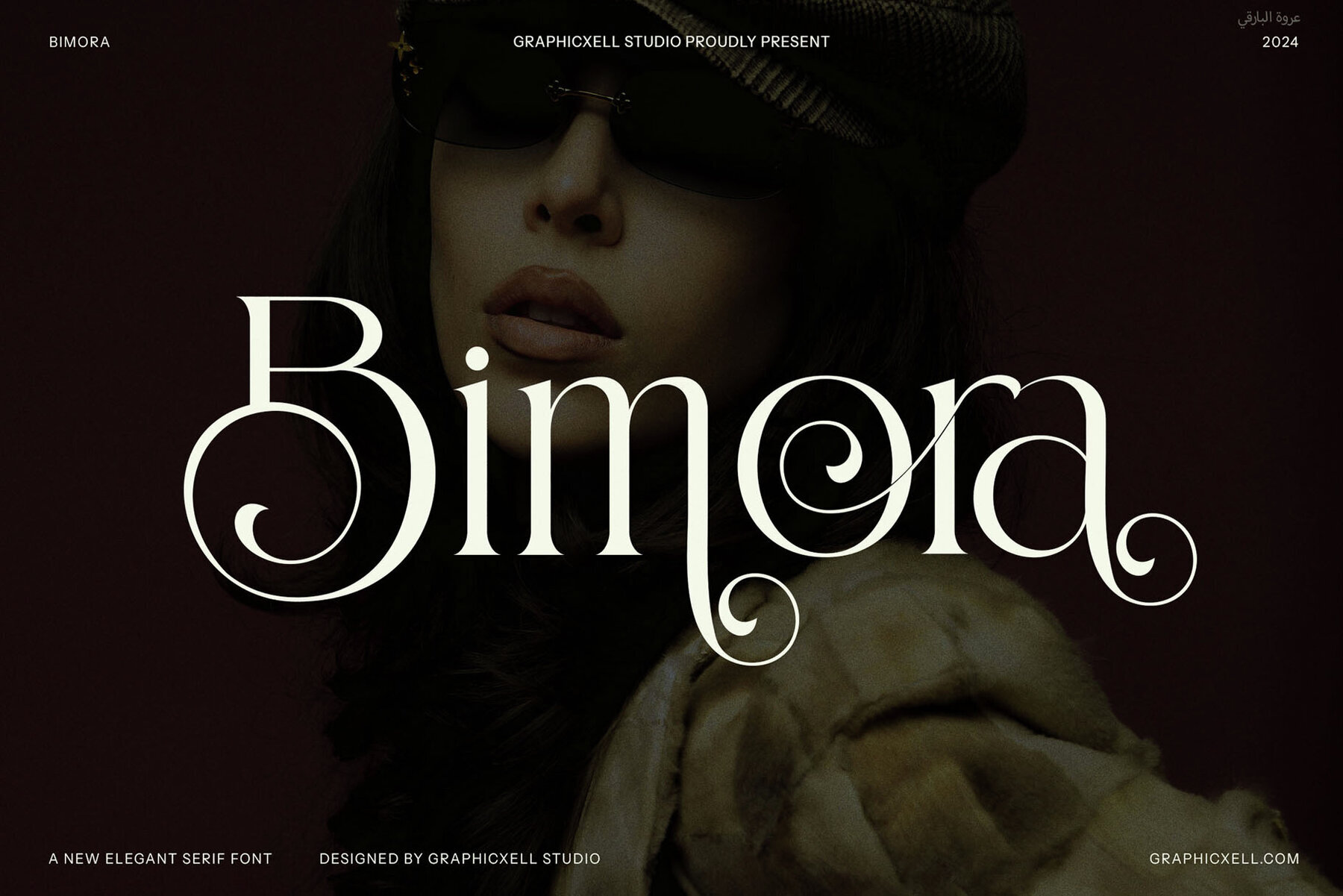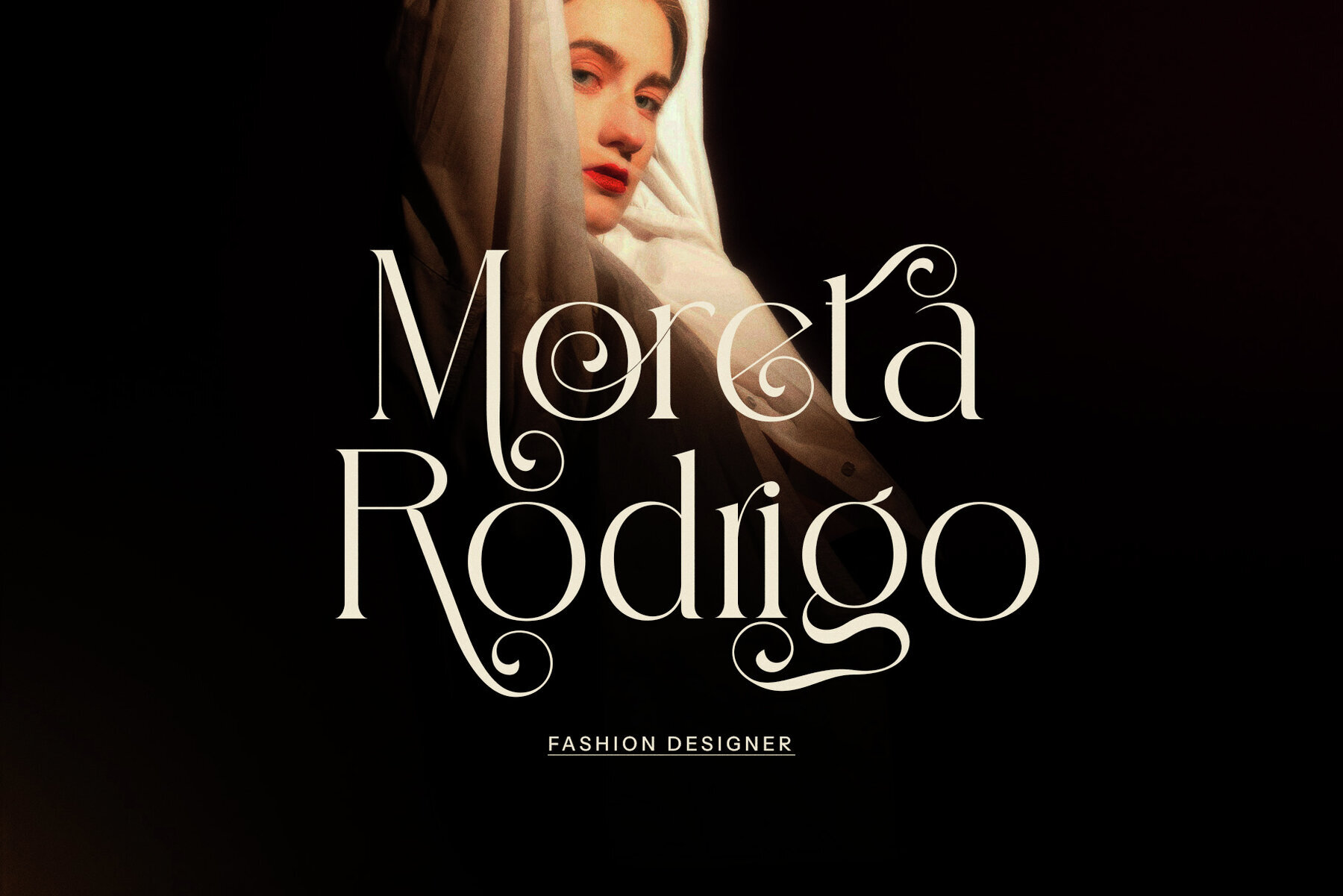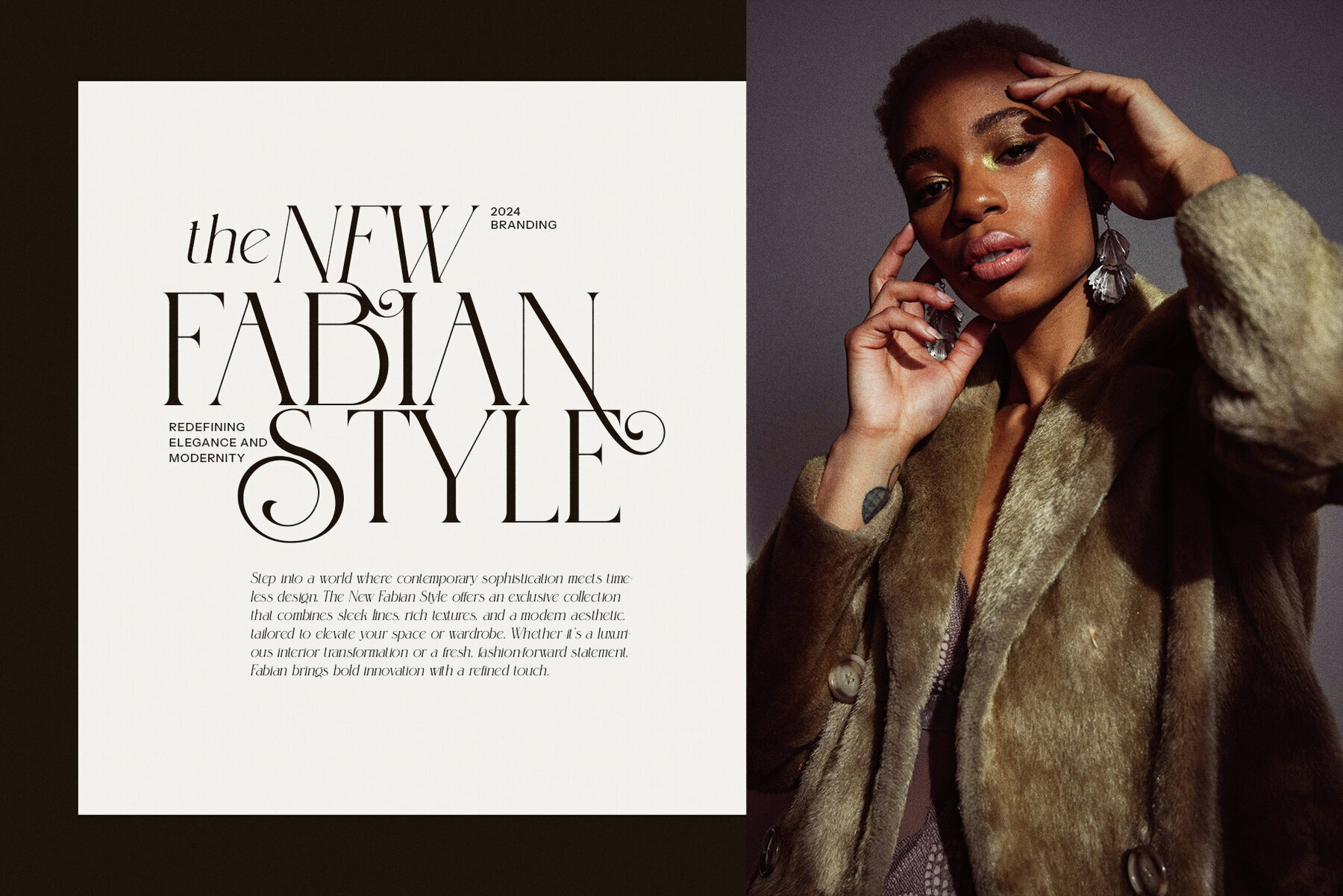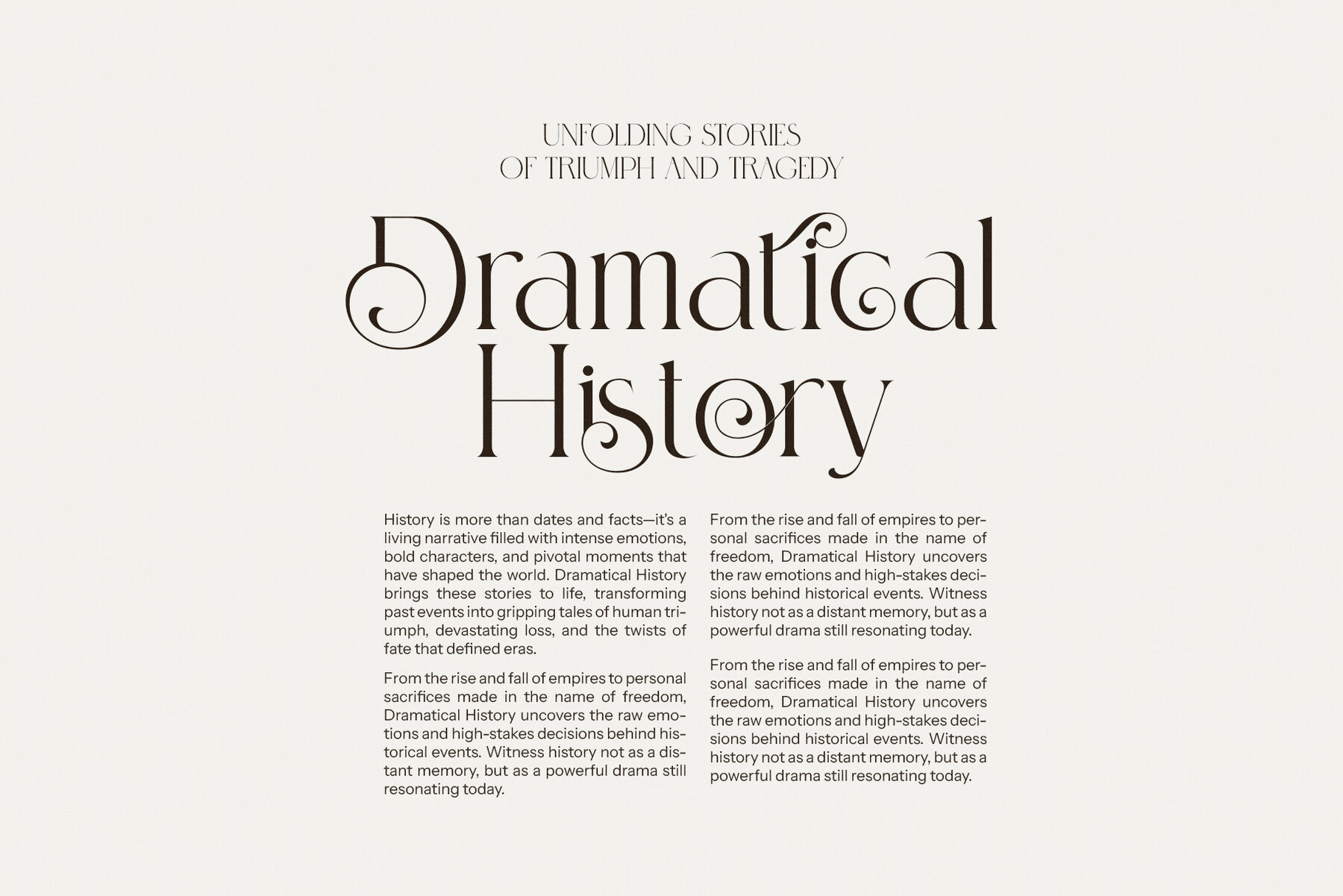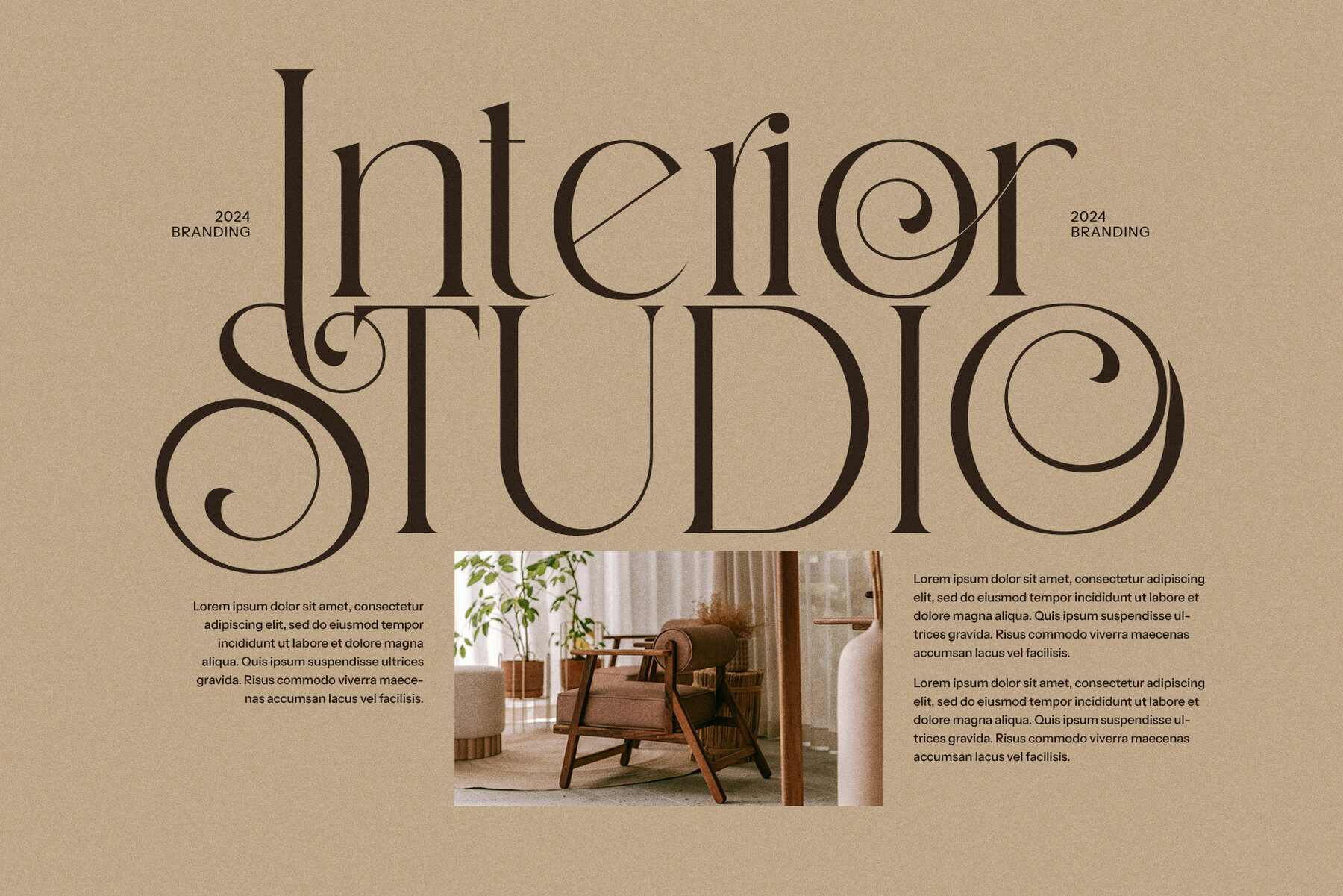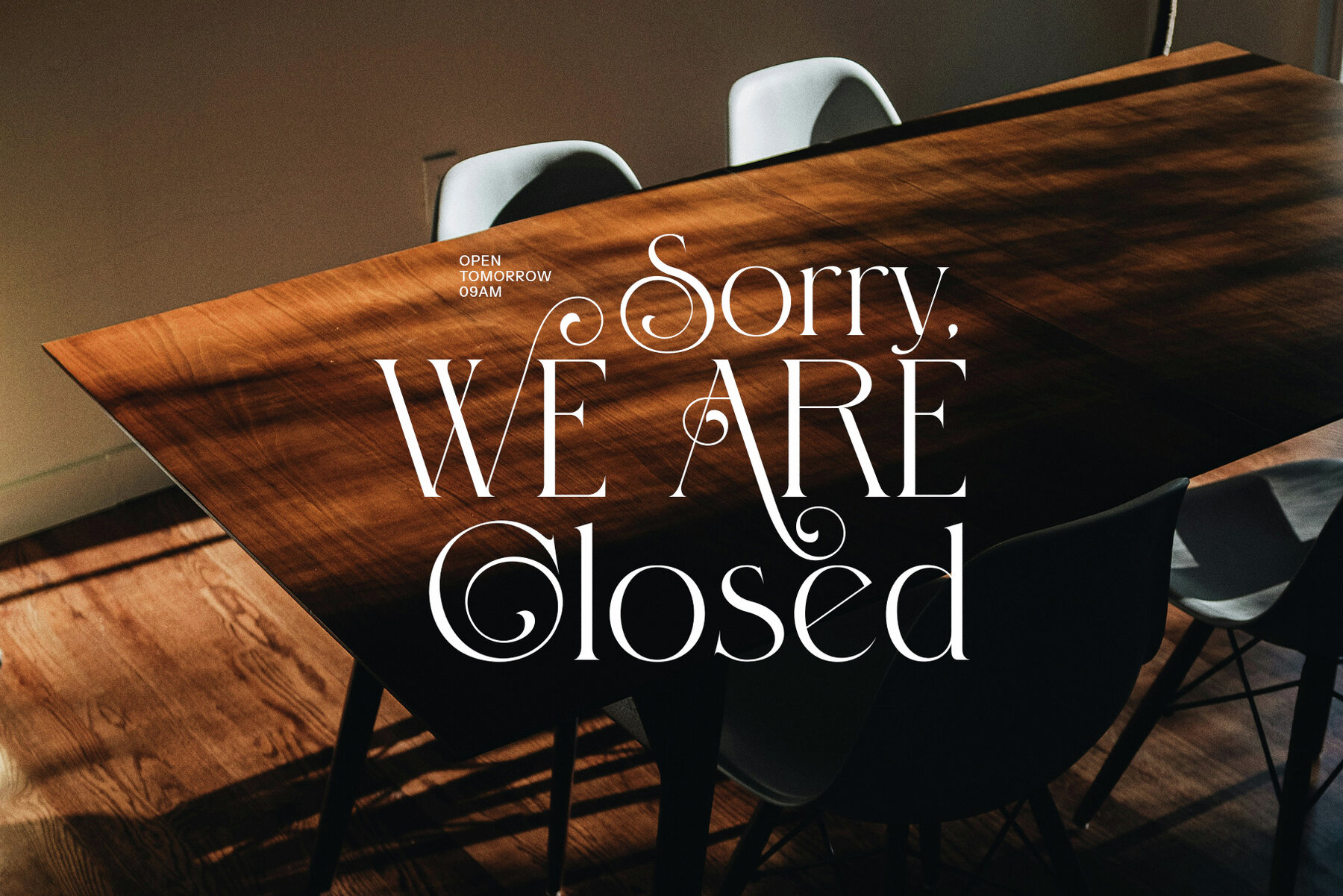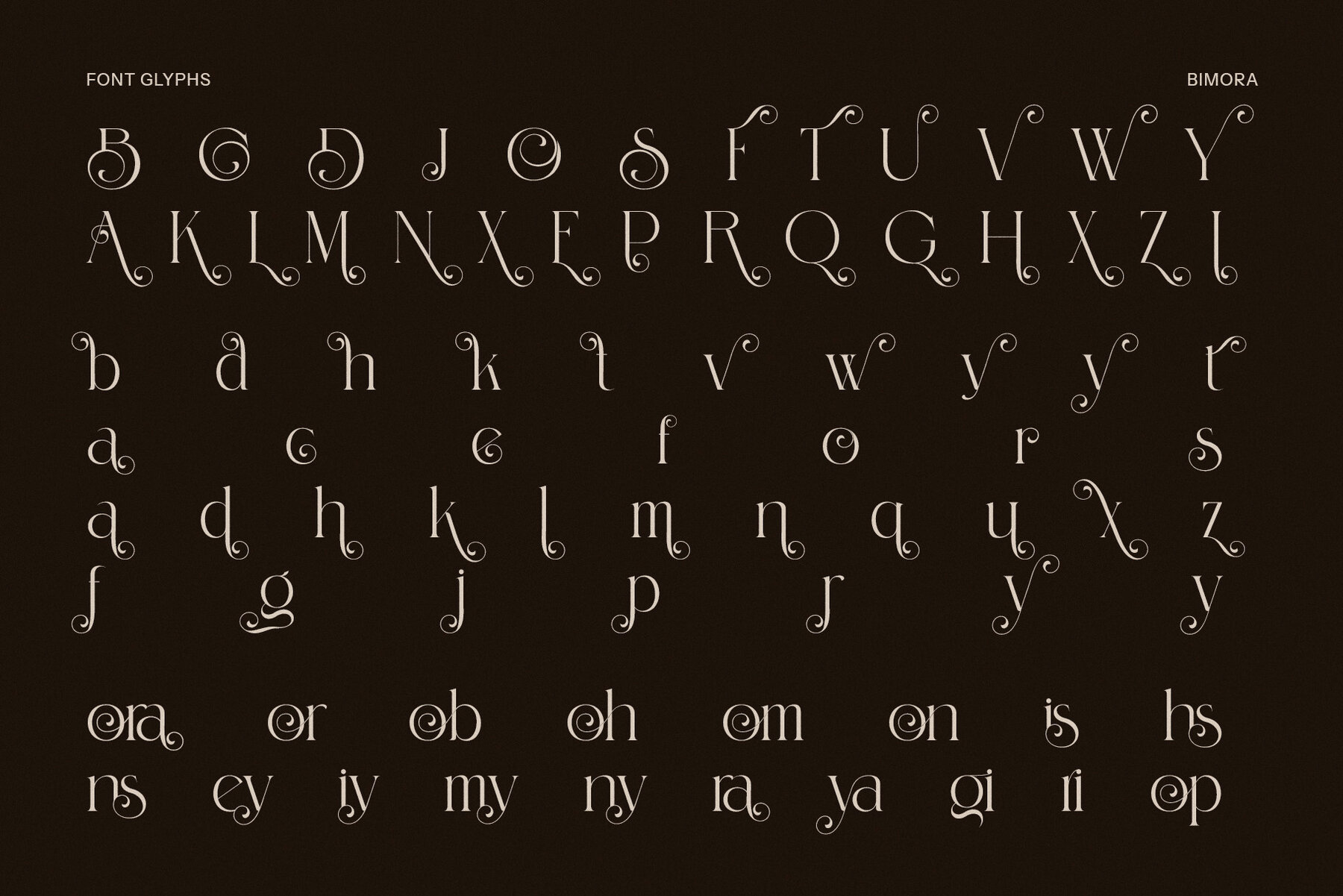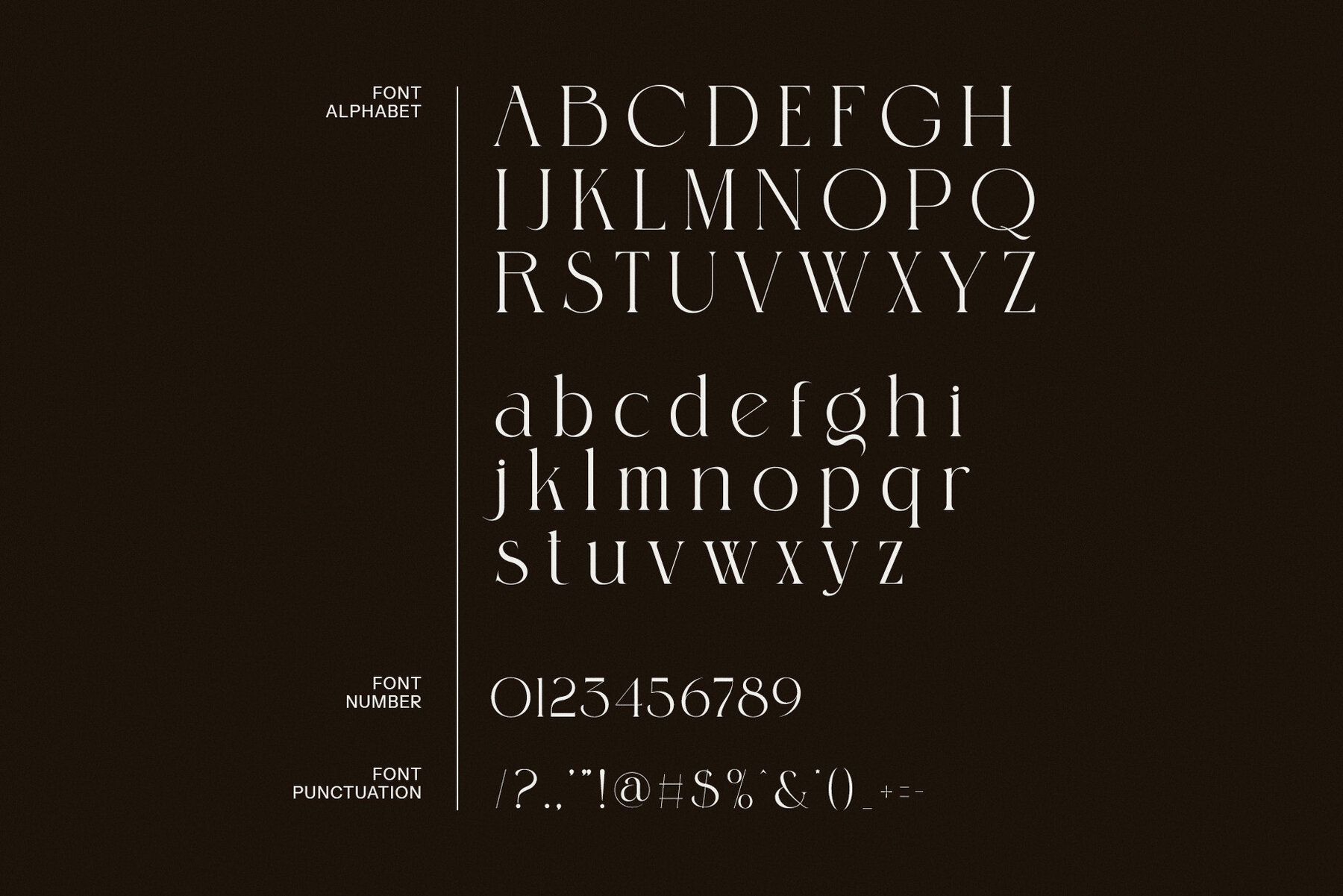
Bimora Font
Bimora
Bimora Elegant Serif is a sophisticated and contemporary typeface designed to infuse luxury and elegance into every project. With its clean lines, sharp serifs, and distinctive ligatures, Bimora achieves a harmonious blend of modern style and classic refinement. It is an excellent choice for high-end branding, logos, editorial layouts, and premium product packaging, offering an air of exclusivity and professionalism to any design. The well-crafted alternates and fluid ligatures add a unique touch, enabling designers to create visually captivating typography effortlessly. Suitable for industries like fashion, hospitality, gourmet food, or beauty, Bimora's distinct features ensure it excels across various applications.
The font's high-contrast strokes and balanced proportions deliver a striking visual impact, making it perfect for both bold headlines and subtle body text. Its adaptability facilitates seamless integration into modern websites, sophisticated magazine layouts, boutique signage, and elegant advertisements. Whether you're aiming for a minimalist, contemporary look or a more ornate and luxurious aesthetic, Bimora's timeless elegance and creative ligatures make it an outstanding choice. It offers designers the ideal combination of beauty and functionality, providing a versatile solution for diverse design challenges.